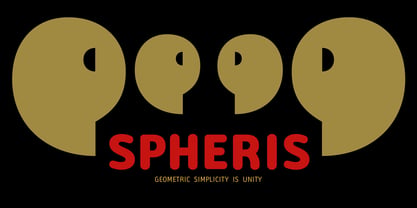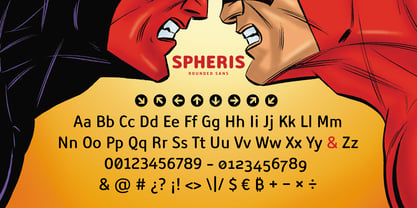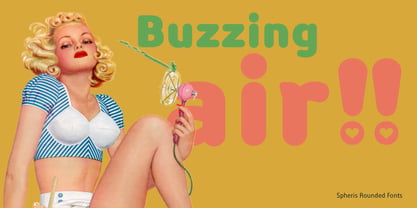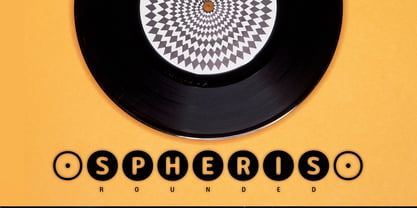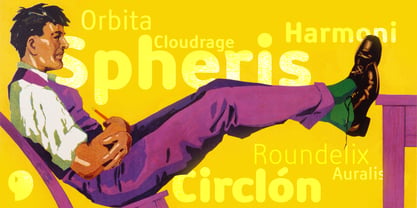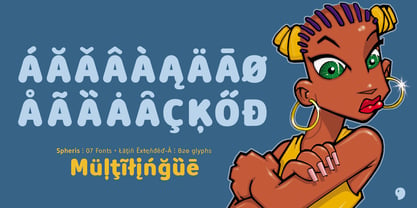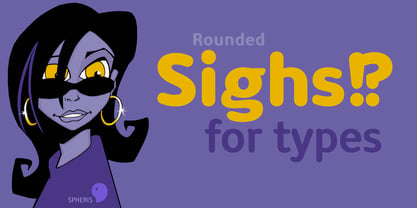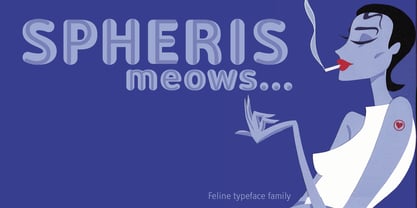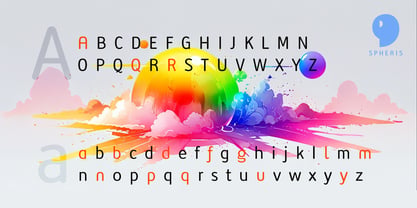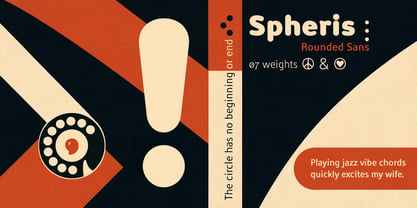
Spheris
by deFharo
The Spheris Font Family was designed by Fernando Haro and published by deFharo. Spheris contains 7 styles and family package options. More about this family
Spheris is born from a delightful contradiction: a geometric sans serif with rounded corners that seem to breathe.
Spheris is a rounded, geometric sans serif family. Its curves are not a decorative gesture: they are a structural decision. Each softened terminal, each carefully measured arc, is there to create a fluid, almost tactile reading experience. It's a typeface that doesn't impose itself: it accompanies you.
With seven weights ranging from the ethereal Light to the gravitational Black, Spheris is a complete typographic universe.
Spheris is alive. Thanks to its advanced OpenType features, it adapts to both technical and expressive needs.
Spheris doesn't intend to replace your favorite sans serif. It wants to coexist with it… and elevate what you do.